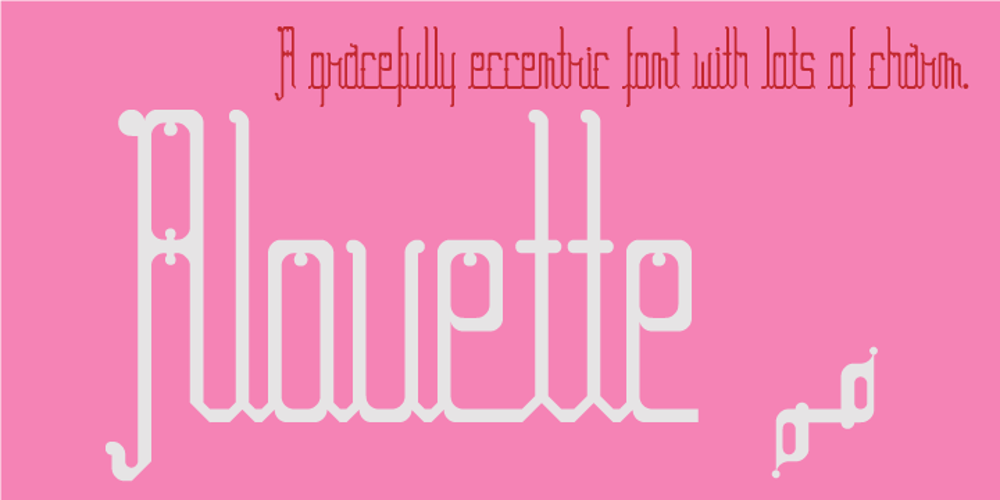
Alouette Font Family was designed by Wilson Thomas and published by Funk King. Alouette contains 1 styles and family package options. Alouette is a graceful modular script font. Evocative of the mysterious, southern charm of New Orleans.